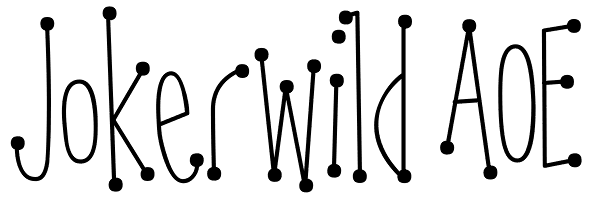
Jokerwild AOE
JokerWild is a thematic typestyle reminiscent of Christmas Stories, sixties Cocktail Parties, and playing jacks when you were younger. A retro inspired typeface of nostalgic memories, the good old days. A fun and funky typestyle full of life, sure...